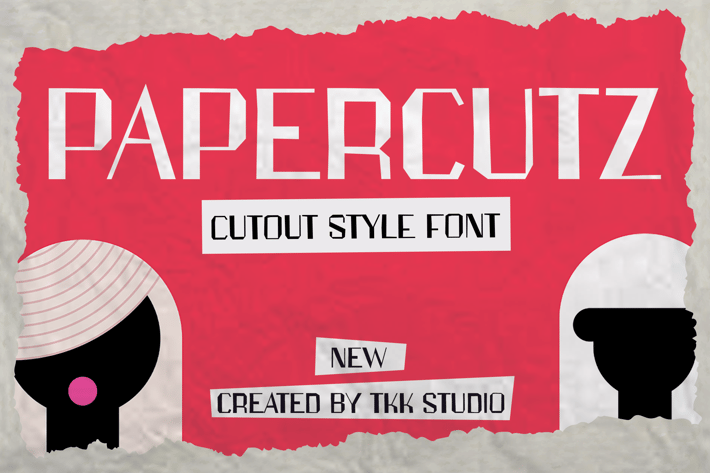
PAPERCUTZ - Cutout Style font
PAPERCUTZ Cutout Style Font is a sharp, narrative-driven typeface that feels like hand-cut headlines from vintage zines and political posters. With ragged edges, geometric slices, and asymmetric shapes, it brings a gritty DIY vibe to bold editorial layouts, retro film titles, or protest art. Its expressive contrast and handcrafted quirk give your words character and movement, without sacrificing legibility.
This font exudes drama, defiance, and retro tension—perfect for visual storytelling, indie book covers, or avant-garde branding.
PAPERCUTZ is made for editorial spreads, poster art, album graphics, and film festival titles. It fits perfectly in any layout that needs visual punch and irregular beauty—think thriller book titles, indie zine headlines, or stage play promotions. It evokes a hand-assembled look, ideal for creatives aiming to break symmetry and embrace controlled chaos.
Use it when your message needs tension, attitude, and sharp emotional cuts.
Key Features :
Handcut Look – Mimics real paper collage for a tactile, authentic tone
Asymmetrical Flow – Disrupts visual monotony with unexpected balance
Bold Personality – Great for title design, protest posters, and alt-magazines
Letterform Drama – Strong contrast with irregular rhythm and chopped terminals
* Versatile Application – Works digitally or in print, especially in artsy or cinematic projects